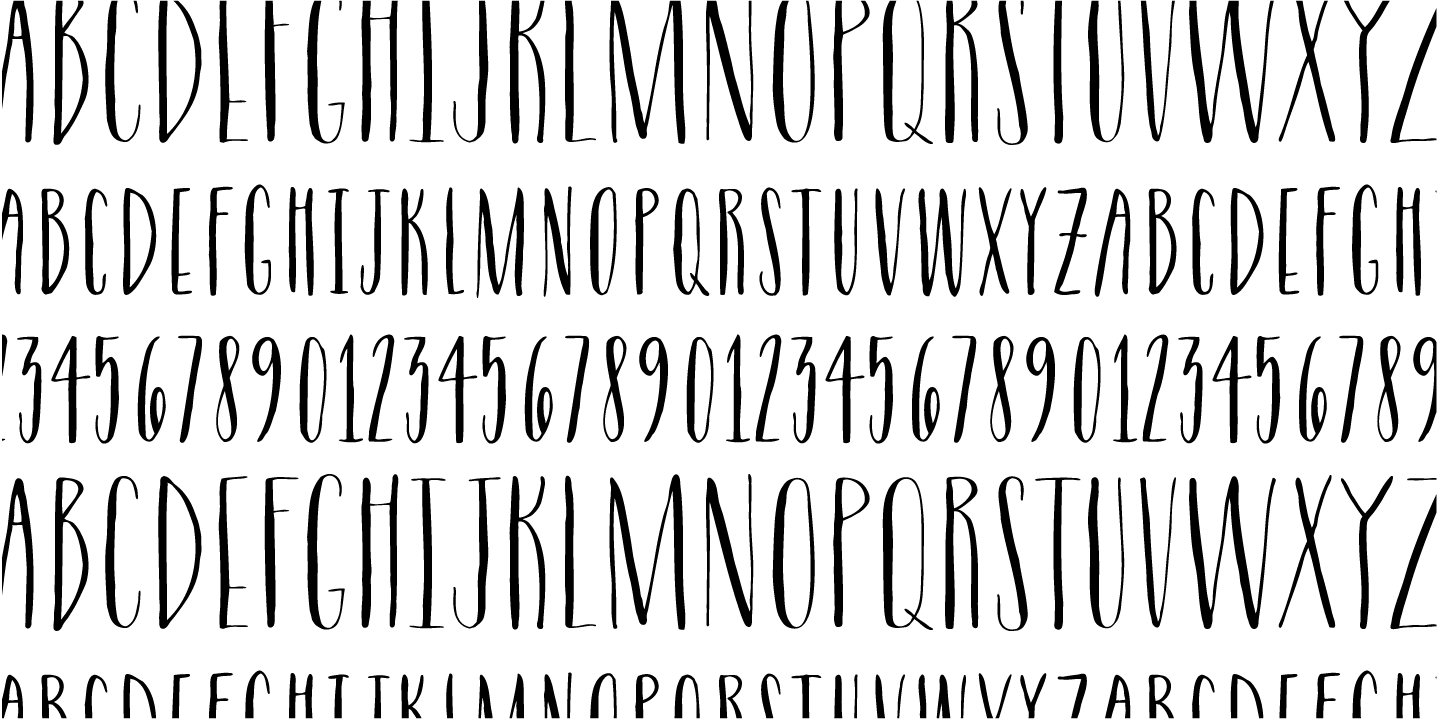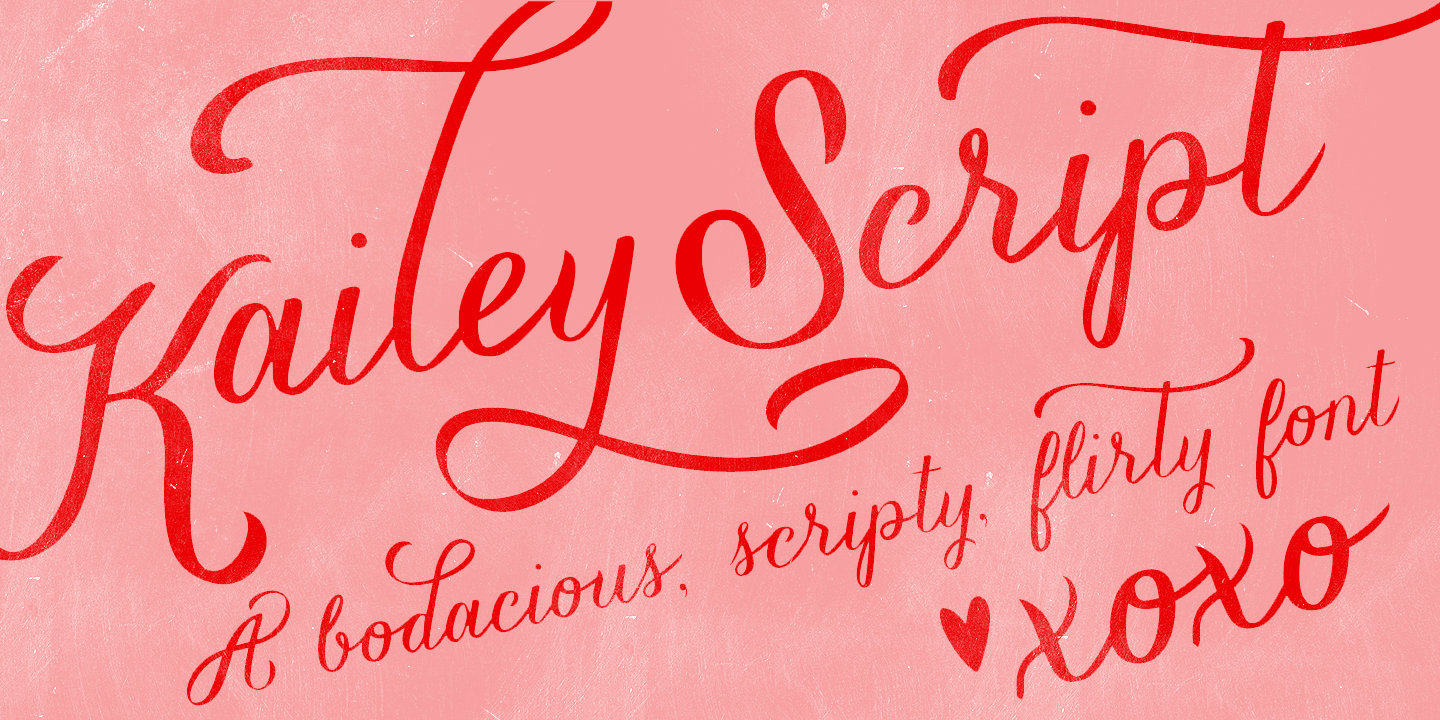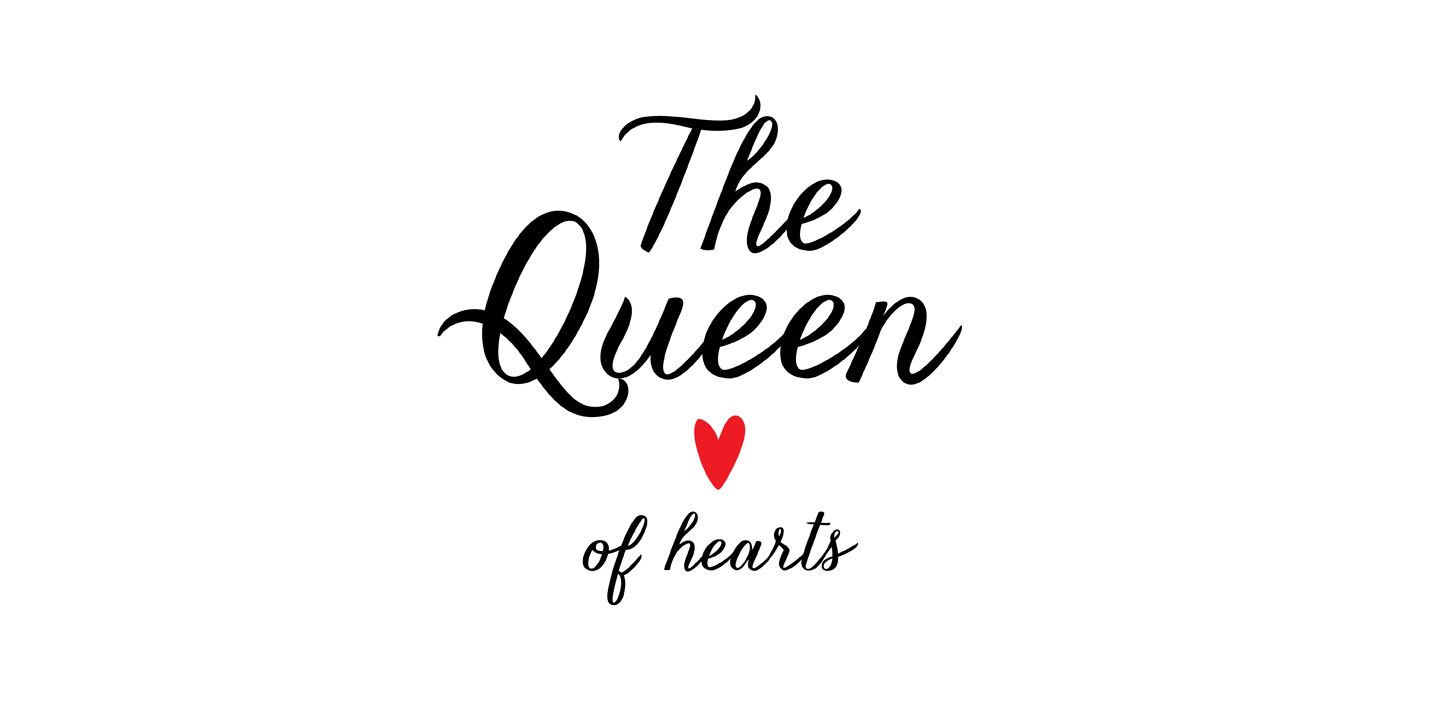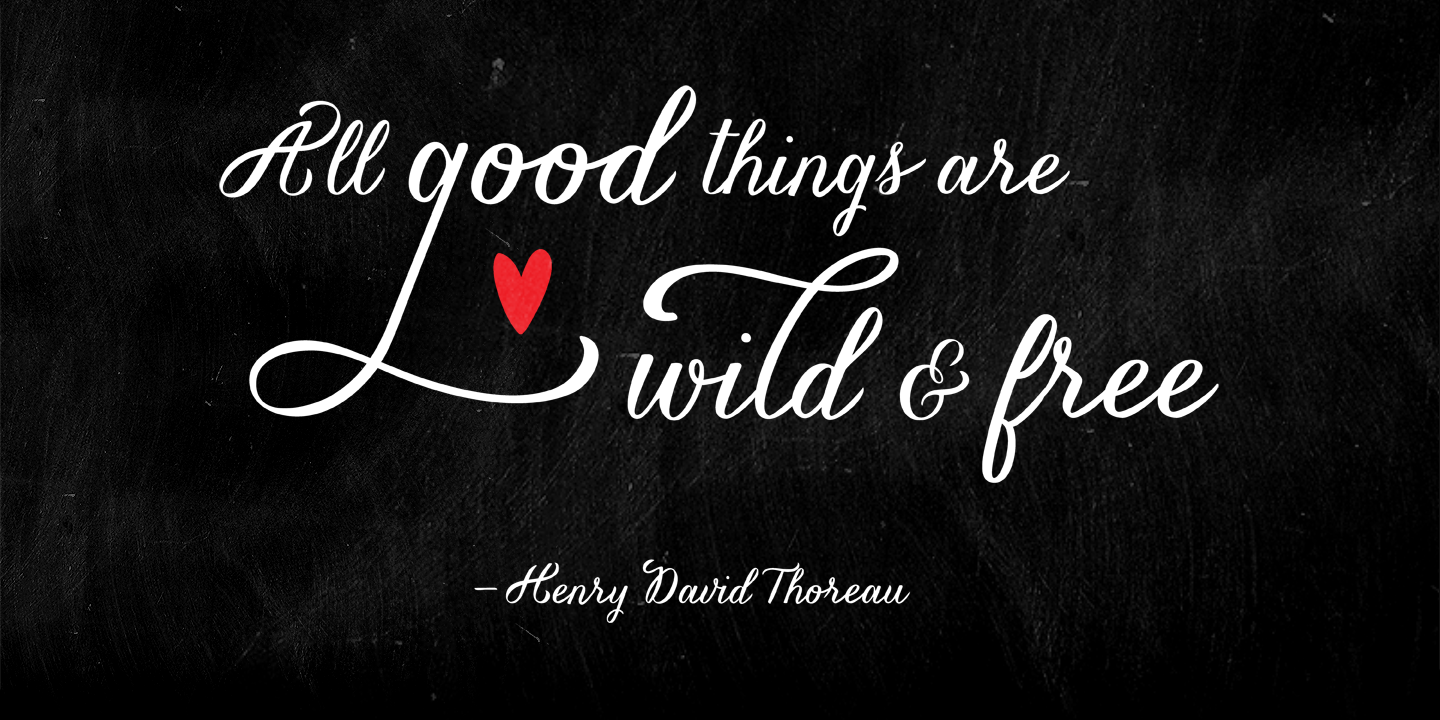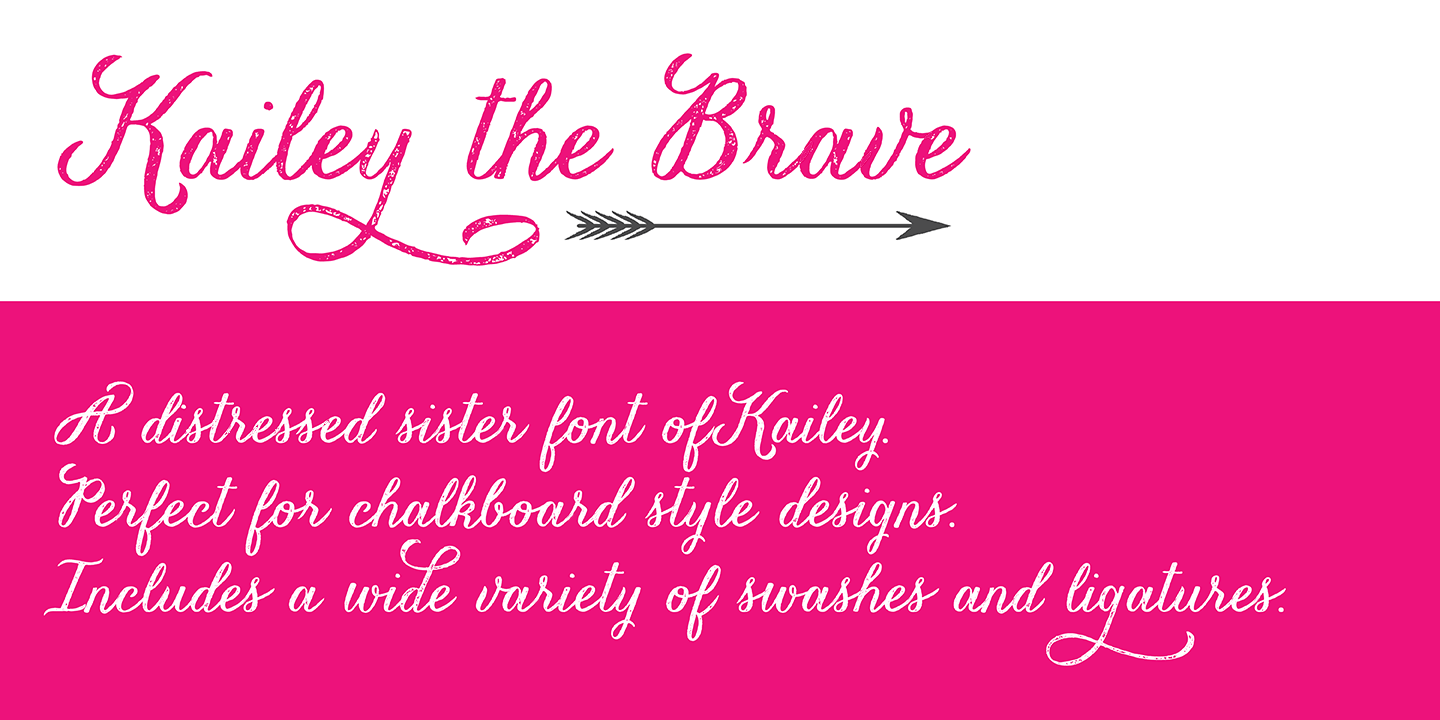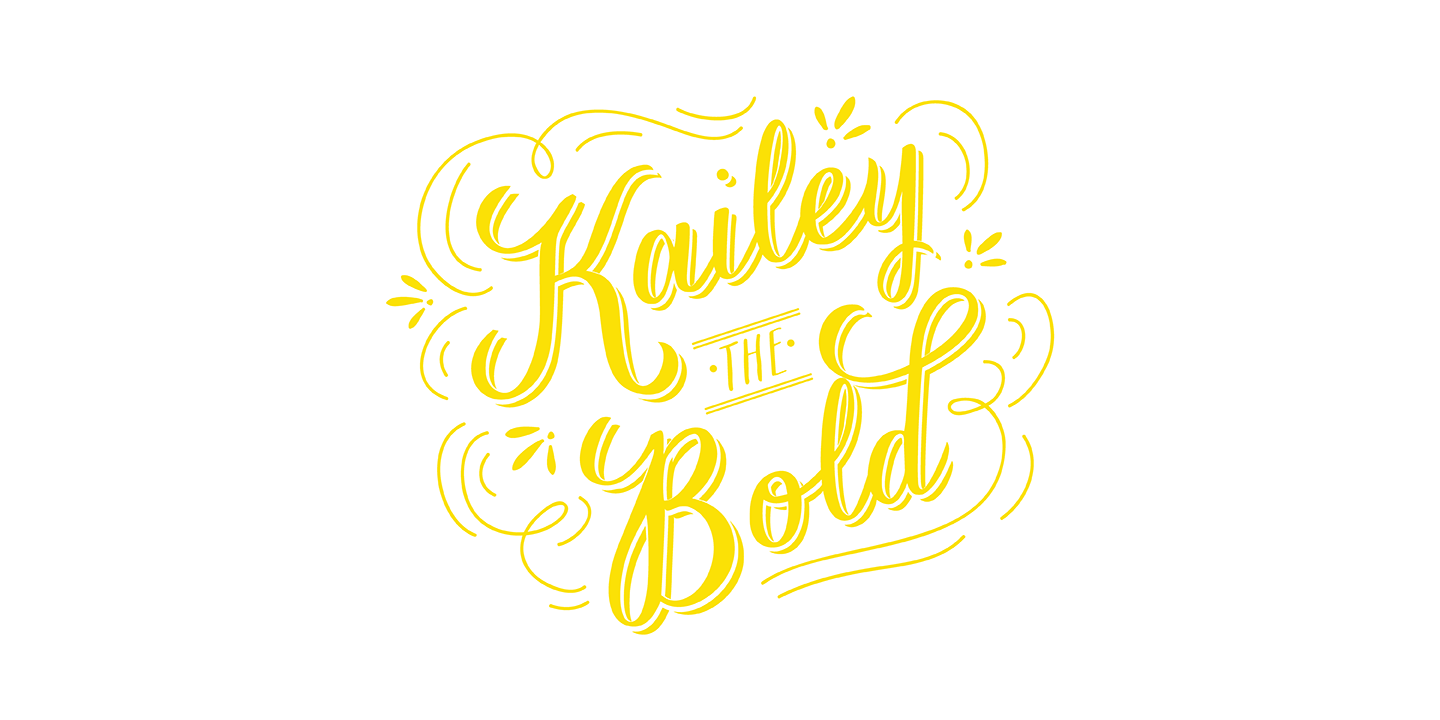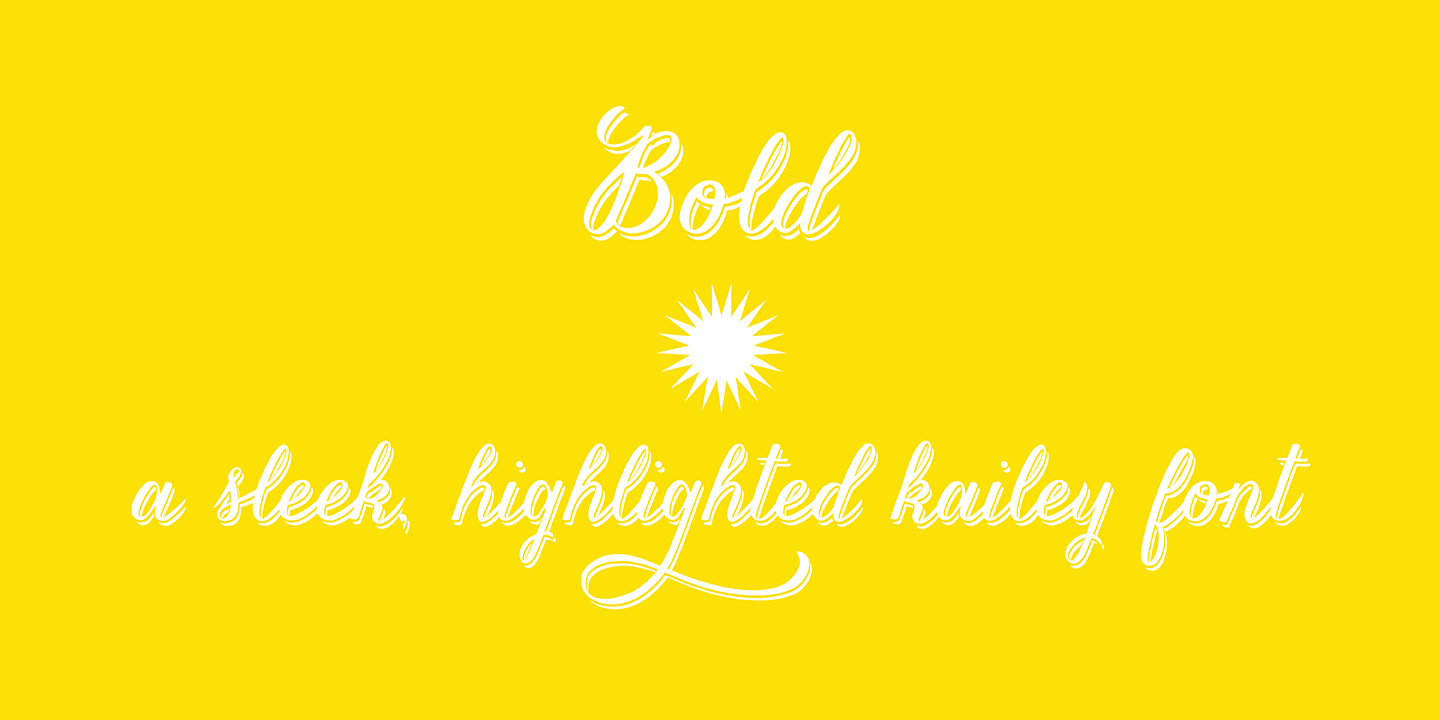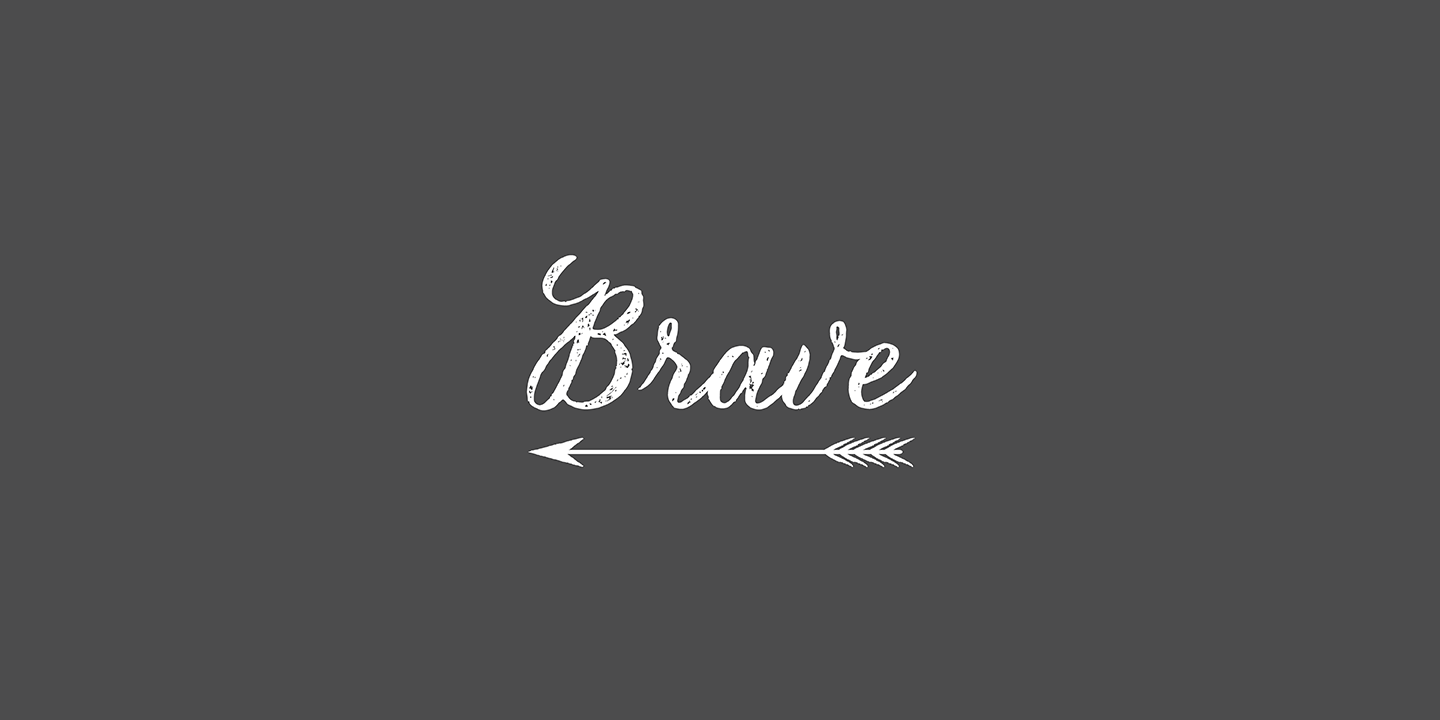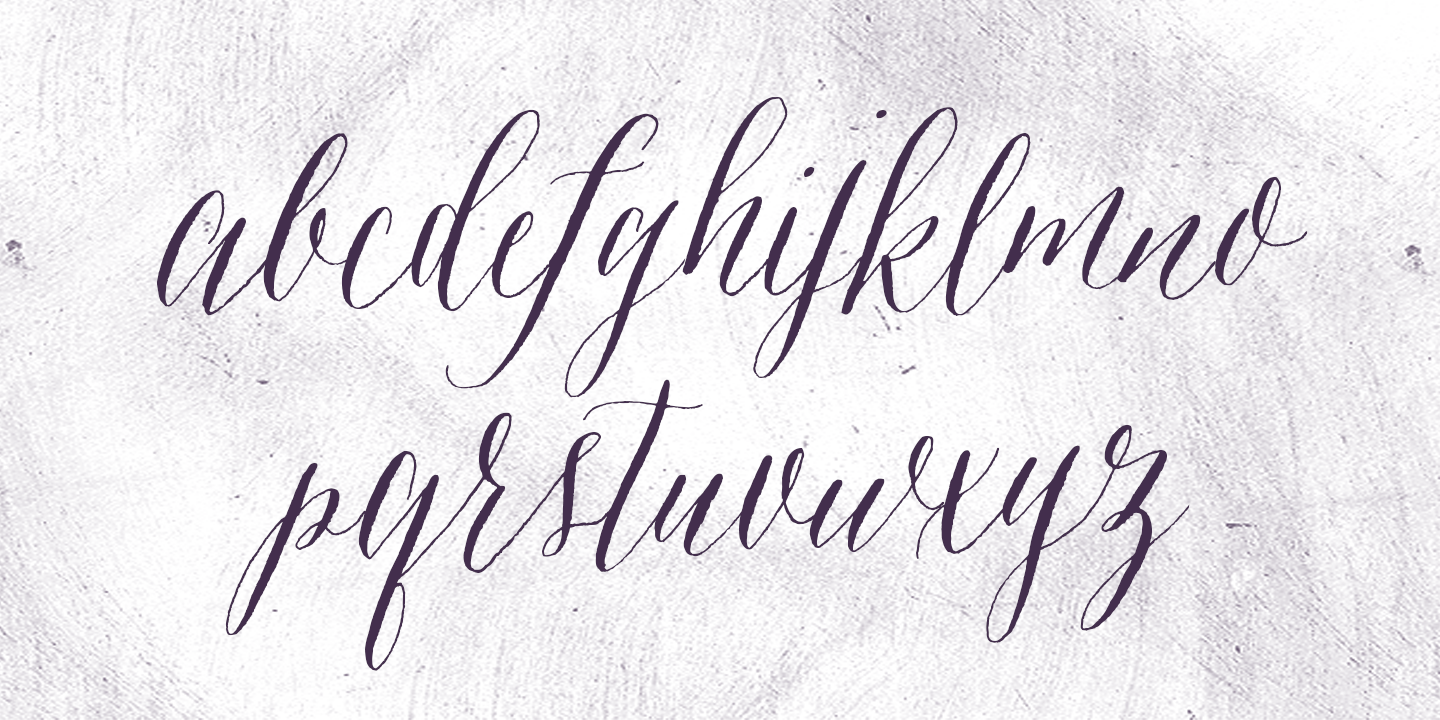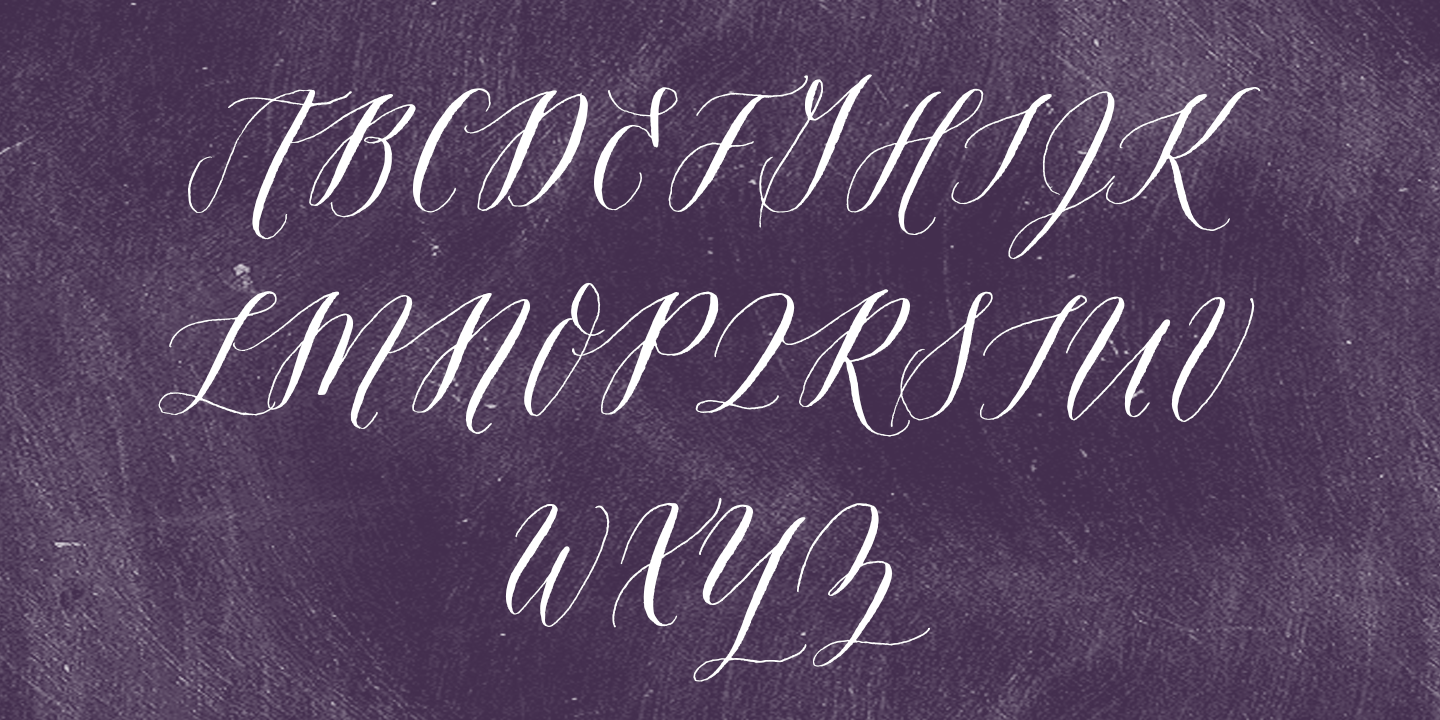
Dathan Boardman and Molly Jacques Erickson founded Great Lakes Lettering with a mutual appreciation for artful calligraphy. “In 2012 I had been working on lots of calligraphic fonts and came across Molly’s work and was immediately struck by how visceral it was and how it didn’t really look like any other kind of calligraphy that I’ve come across,” Dathan says. “I reached out to her wondering if she had any interest in turning her lettering into fonts.” The duo’s first typeface, Frosted, was released later that year.
Dathan and Molly’s bestselling typefaces include Asterism, a calligraphy style font with a moving baseline and lots of shining personality, and Kailey, a hand lettered typeface that was inspired by Molly’s signature lettering style, consisting of bold brush strokes, fluid flourishes, and distinctive characters.
Alissa Mazzenga joined the team in 2014 with the the foundry’s debut of her design, Feast; a typeface whose magic seems to reside in the ethereal movement of fluid wisps of ink, forming soft arched lines and design that stands alone.
The group’s fonts are best known for working in a variety of settings, both formal and informal. They’ve worked with brands such as Nike and Martha Stewart and have a lot more ahead of them. “We have a lot of exciting collaborations ahead. As our fonts are becoming more refined and more formal, we are reaching a new level of elegance that makes us excited to keep going and keep perfecting our working method.